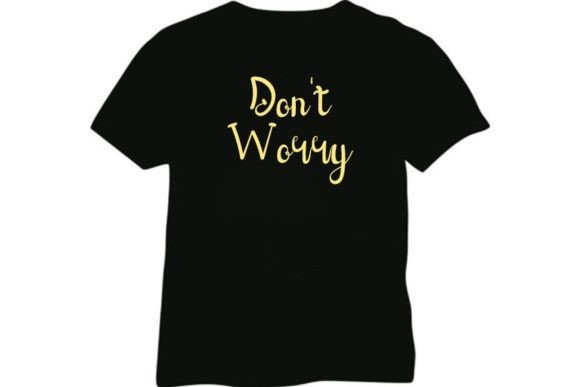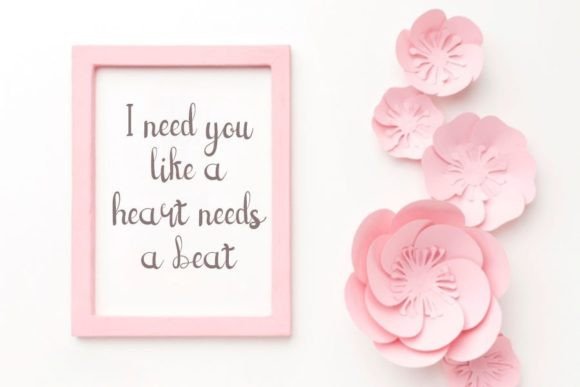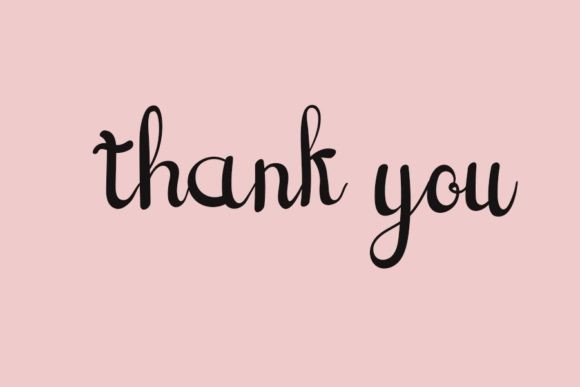
Alphabet Font
About Alphabet Font
**Alphabet Font: Where Fun Meets Creative Flair**
Introducing “Alphabet,” a fun handwritten font that brings a unique and lively style to your most creative ideas. With its playful and distinctive aesthetic, this font is designed to infuse your projects with a sense of fun and creative flair. Add “Alphabet” to your designs and watch as each letter contributes to the vibrancy and liveliness of your creations.
At the core of “Alphabet” is a sense of fun that radiates from every stroke. The font’s handwritten characters exude a playful charm, making it an ideal choice for designs that seek to capture attention with a touch of creativity. “Alphabet” is not just a typeface; it’s a design element that transforms your text into an engaging visual experience.
The unique style of “Alphabet” opens the door to a myriad of creative possibilities. Picture it adorning posters, adding a playful touch to social media graphics, or becoming the signature font for projects that demand a distinct and energetic vibe. This font becomes a versatile companion that aligns seamlessly with the essence of your creative vision.
The adaptability of “Alphabet” makes it suitable for diverse applications across various mediums. Whether you’re working on print designs, digital content, or crafting handmade creations, this font becomes the dynamic brushstroke that elevates your projects and adds an element of fun.
In conclusion, “Alphabet” is not just a font; it’s a celebration of fun and creative expression. Embrace it, and watch as your designs come alive with a playful touch. With “Alphabet,” every letter becomes a brushstroke in the canvas of creativity, leaving an indelible mark of vibrancy on your design journey.